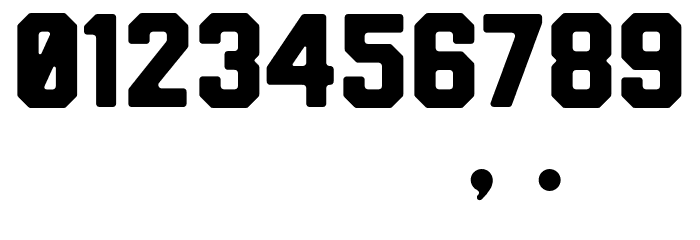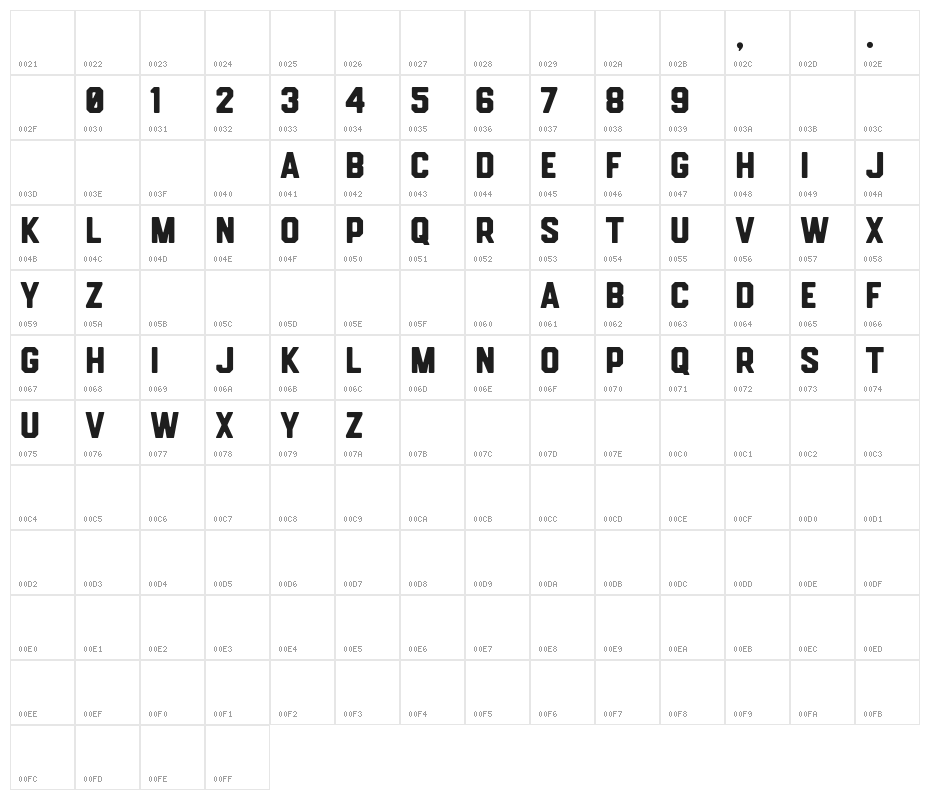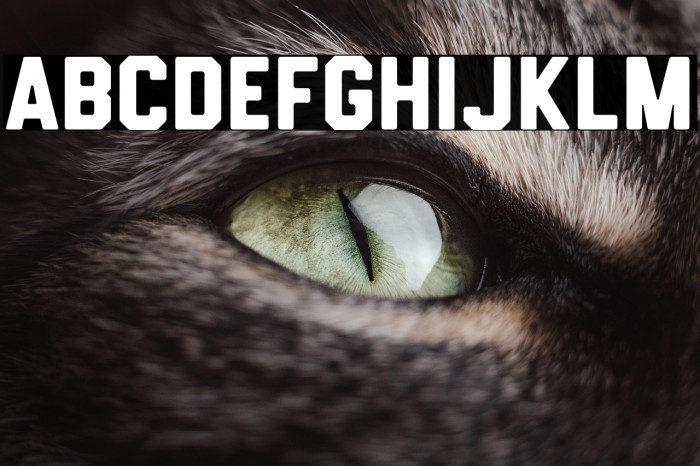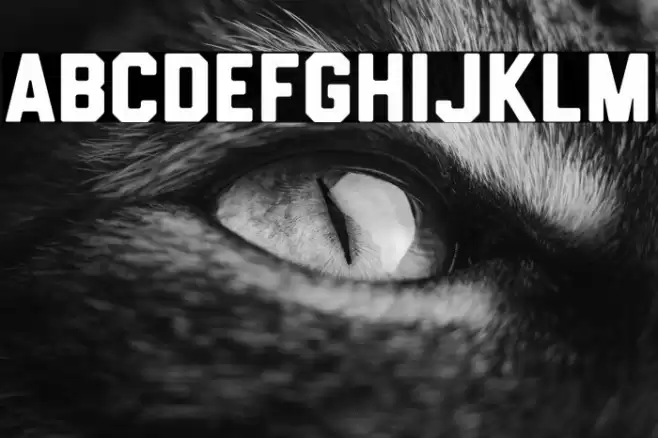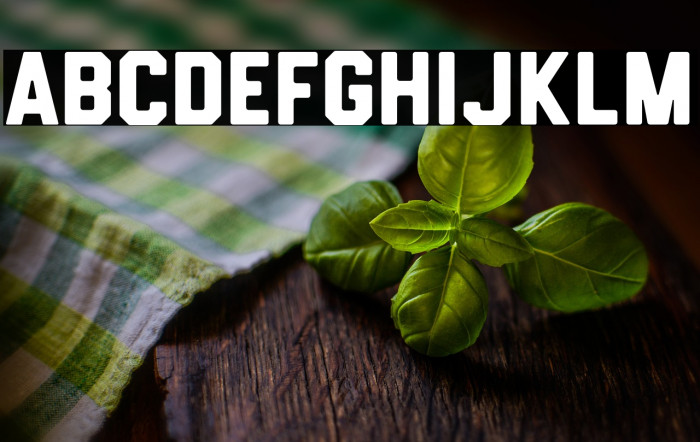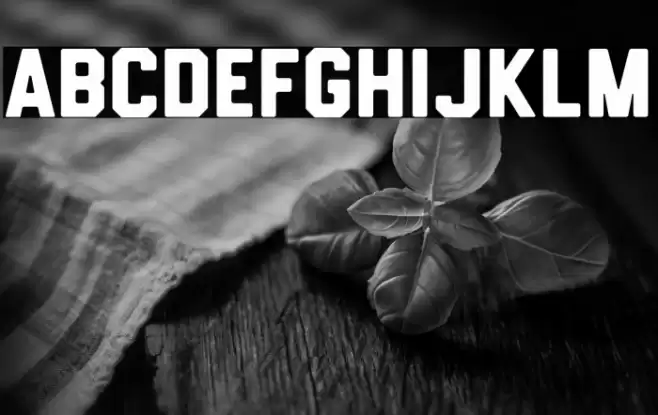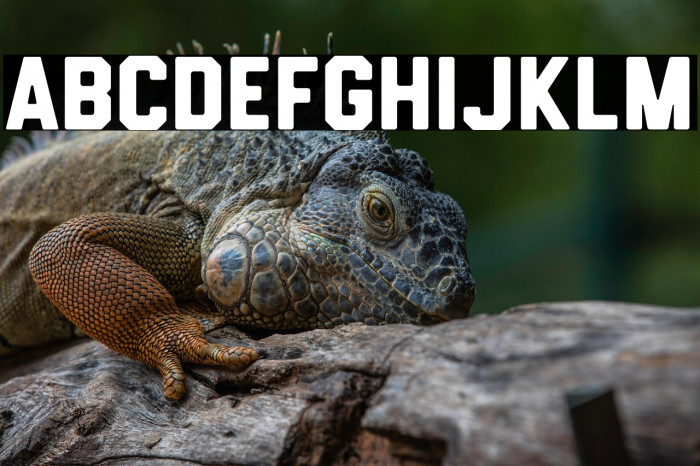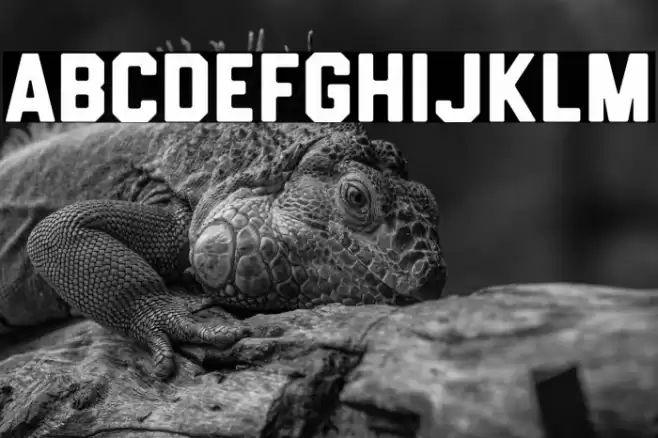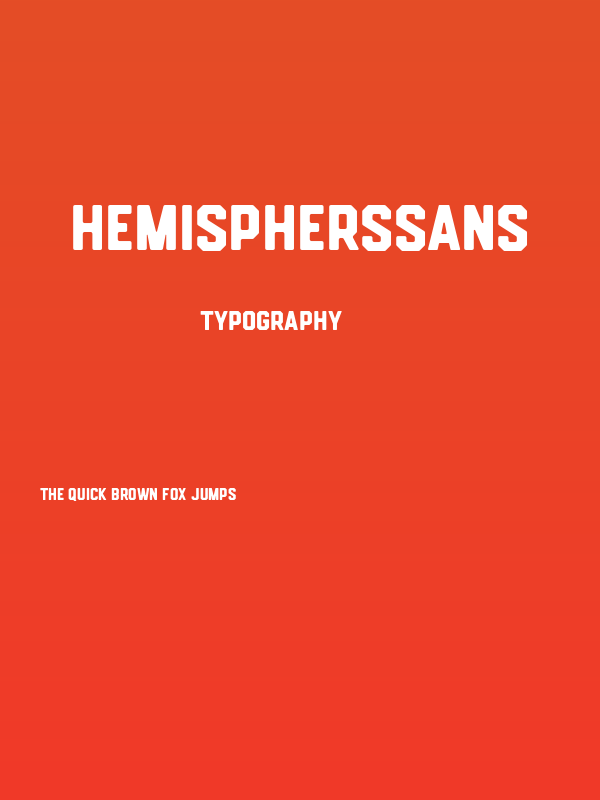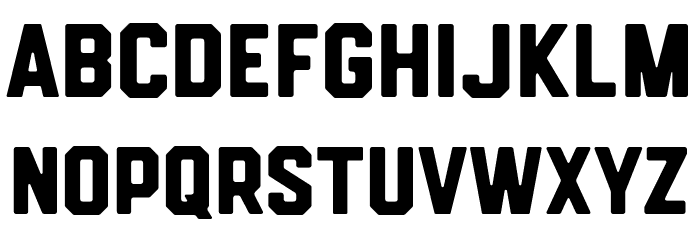
HemisphersSans Font
HemisphersSans Description
This font features bold, geometric letterforms with a strong, impactful presence. The characters are uniformly thick, creating a sense of stability and strength. The design is clean and modern, with a slight industrial feel due to its blocky structure. The uppercase and lowercase letters maintain a consistent style, while the numerals are equally robust and clear. The font's simplicity and clarity make it highly legible, even at smaller sizes. It is well-suited for applications where a bold statement is needed, such as headlines or branding materials.